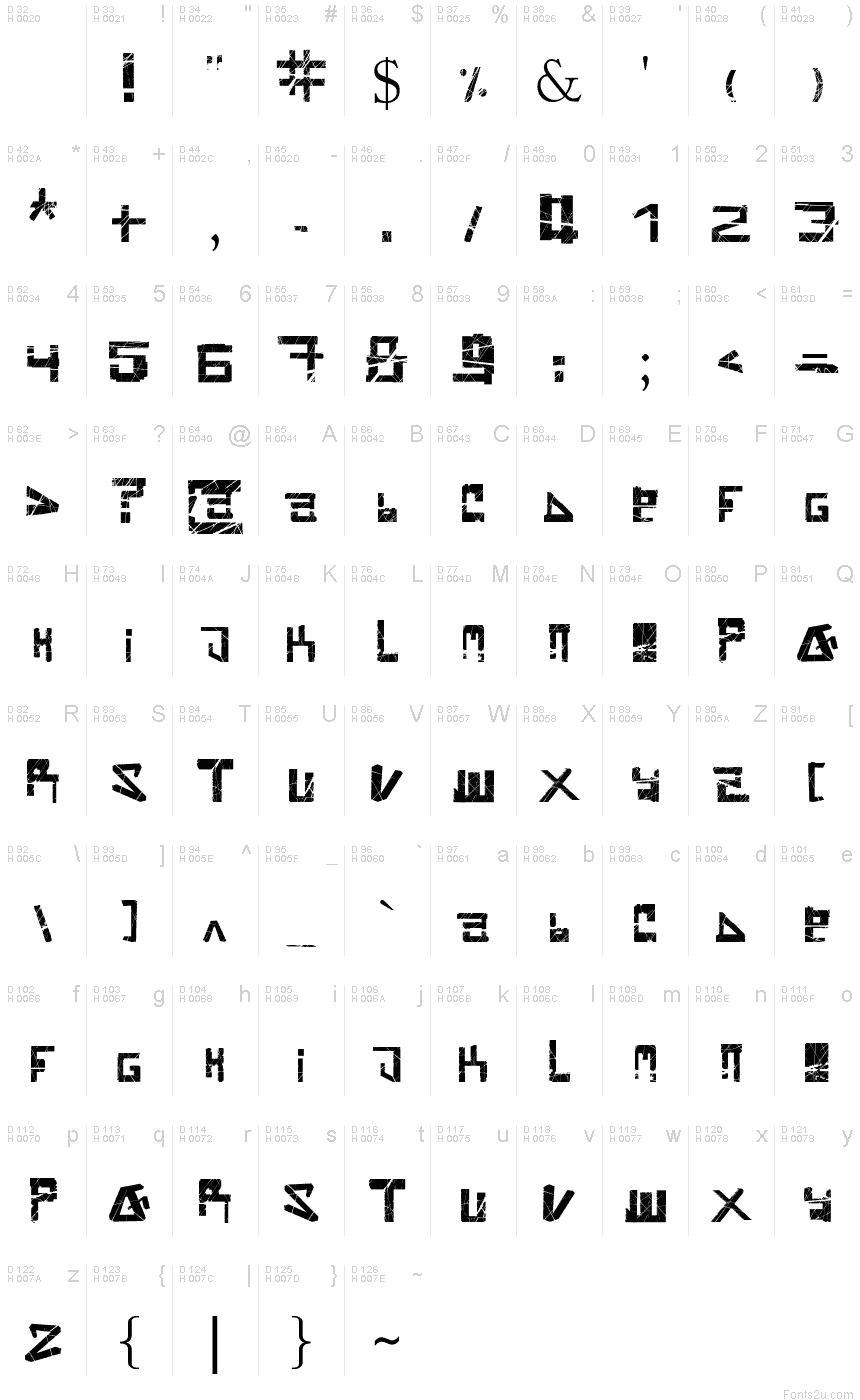
Brain Damage
Brain Damage font by Mr.Fisk Inversions is a free distorted display typeface with letters that look shattered, taped back together, and scratched over with harsh diagonal lines. Its blocky shapes feel half-digital, half-graffiti, like warning symbols glitching on a broken screen. The irregular gaps and jagged edges create a restless rhythm that pulls the eye in and refuses to sit quietly in the background.
Using Brain Damage, you can push the chaos right to the front of your layout—great for horror posters, industrial or experimental music covers, glitch-art event flyers, underground club branding, game titles, and edgy zines. This free font works best at bold sizes, then you can anchor it with a clean, narrow sans serif for supporting text to keep everything readable while the headline screams.